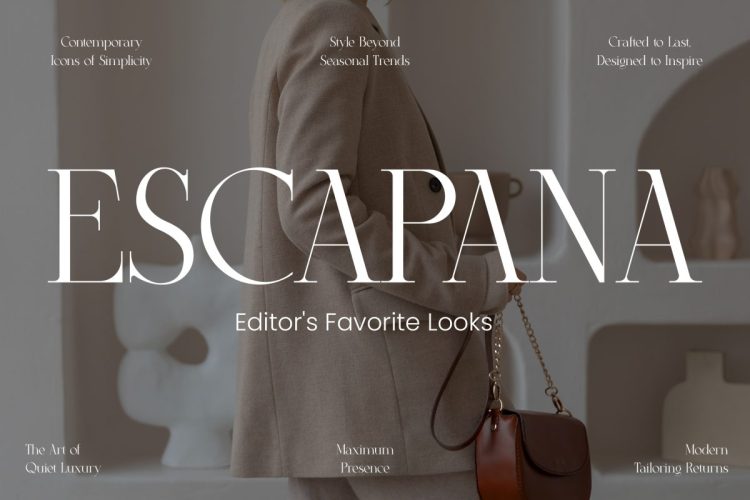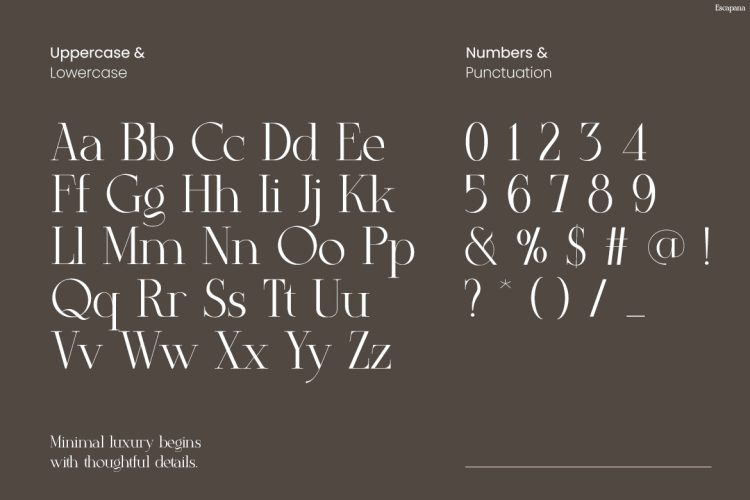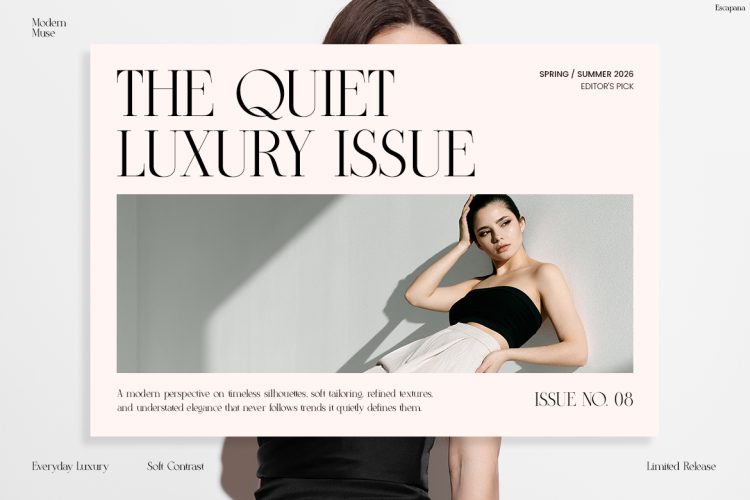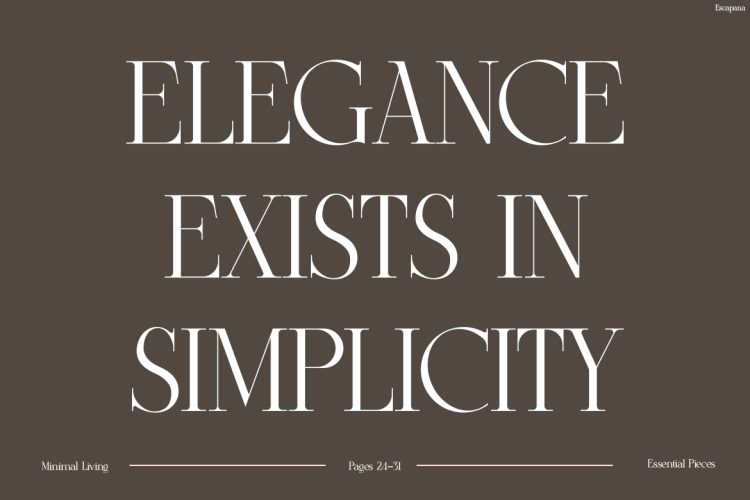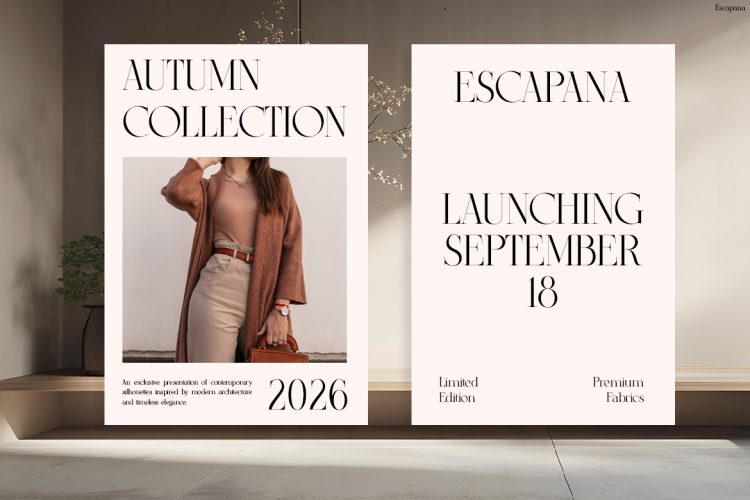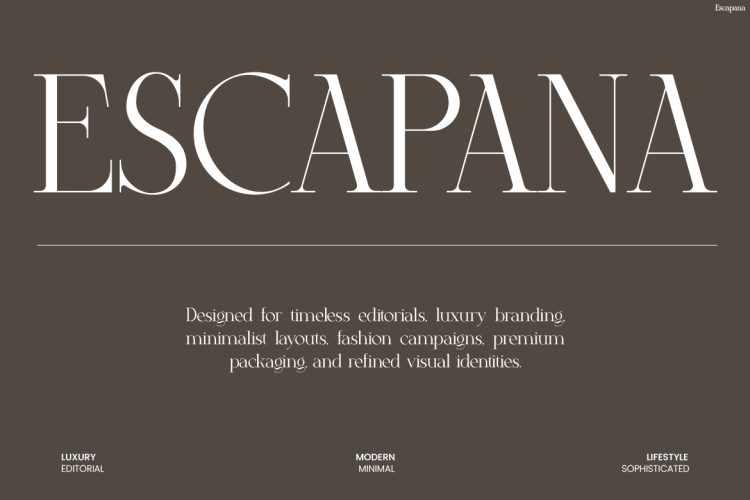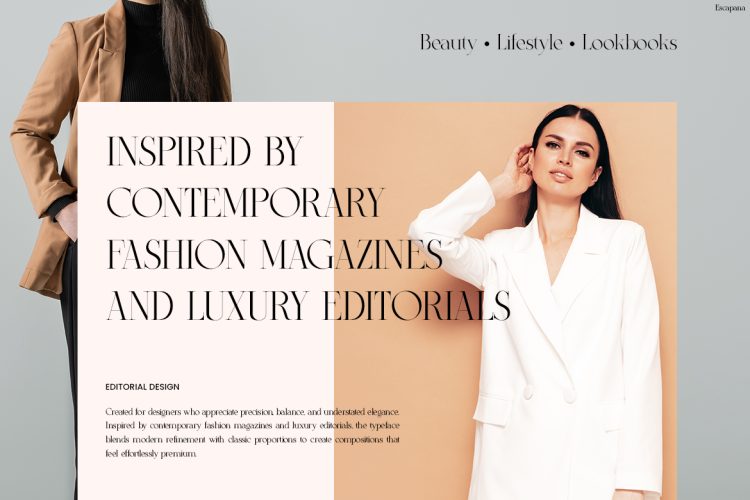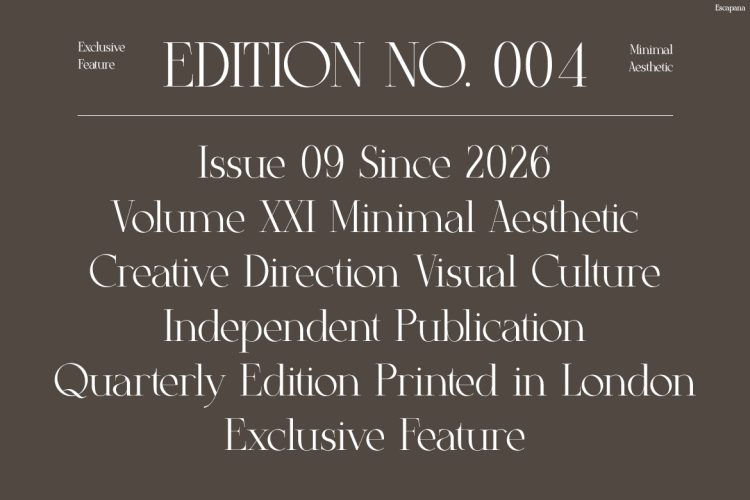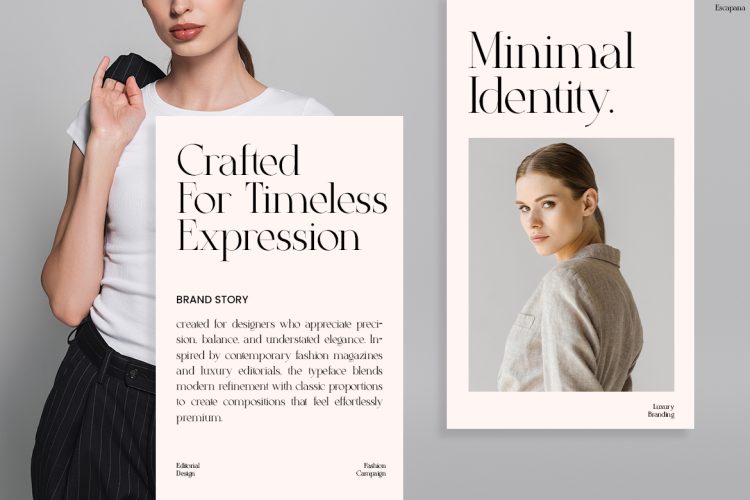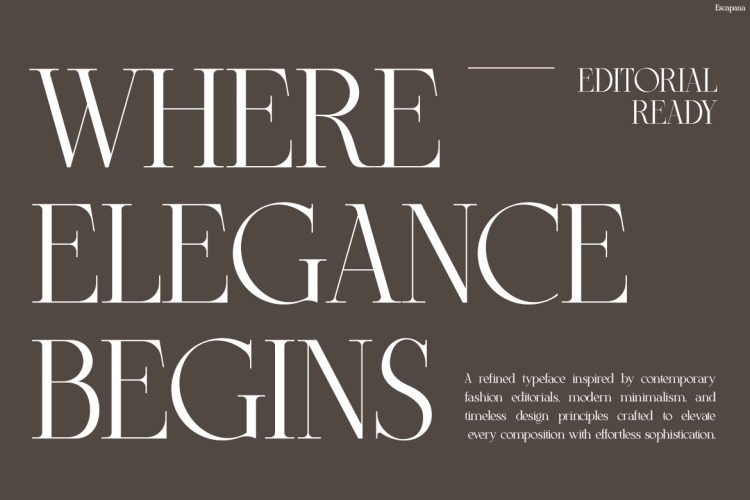
Instagram Font Escapana โ Elegant Editorial Serif for Fashion, Branding & Premium Social Media
Instagram Font Escapana is a refined luxury serif that blends timeless elegance with modern editorial style. From the very first glance, its high-contrast letterforms create a sophisticated visual identity. Moreover, the graceful proportions add balance and beauty to every composition. As a result, your headlines instantly feel premium and memorable. At the same time, the clean structure keeps every word highly readable. Furthermore, Escapana works beautifully across both digital and print media. Therefore, it becomes an excellent choice for designers who value elegance without sacrificing functionality.
Why You’ll Love It
Instagram Font Escapana is crafted for creators who appreciate luxury and simplicity. Not only does it elevate branding, but it also enhances every visual with a polished editorial look. In addition, its elegant serif style fits fashion campaigns, magazine covers, Instagram posts, luxury packaging, logos, invitations, and website headers. Likewise, it helps brands create a consistent premium identity across multiple platforms. Meanwhile, its minimalist character keeps layouts clean and sophisticated. Most importantly, it leaves a lasting first impression that customers remember.
Instagram Font Escapanaย Perfect For
- Fashion brands and luxury boutiques
- Instagram creators and influencers
- Editorial magazines and lookbooks
- Beauty and skincare branding
- Jewelry and perfume packaging
- Wedding invitations and stationery
- Premium logos and brand identity
- Lifestyle blogs and website headers
Elevate Your Brand
If you want your designs to feel luxurious, Instagram Font Escapana is the perfect choice. Furthermore, its refined letterforms instantly enhance visual appeal. At the same time, its versatility allows you to use it across countless creative projects. Consequently, your branding looks more professional and trustworthy. Finally, choose Escapana today and transform ordinary designs into elegant masterpieces that truly stand out.